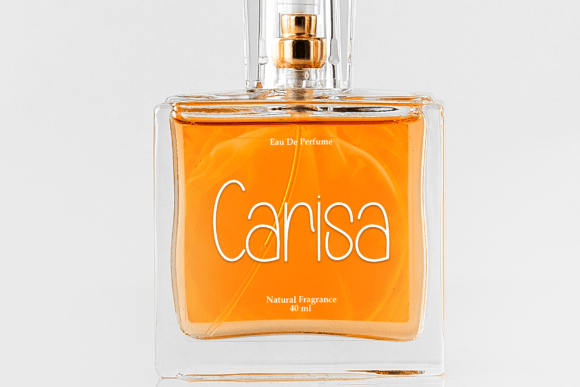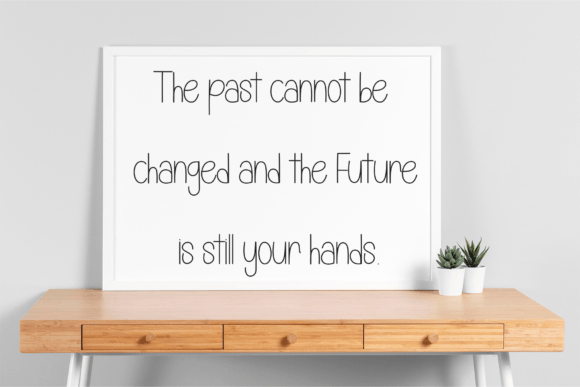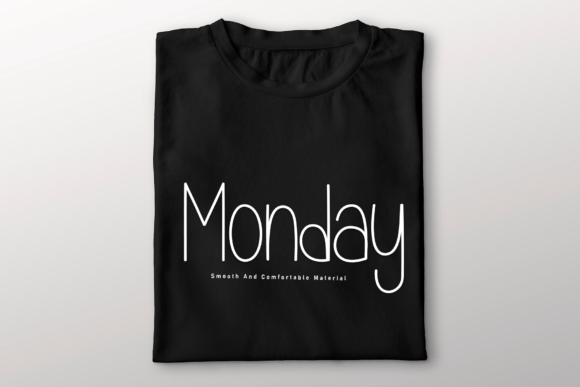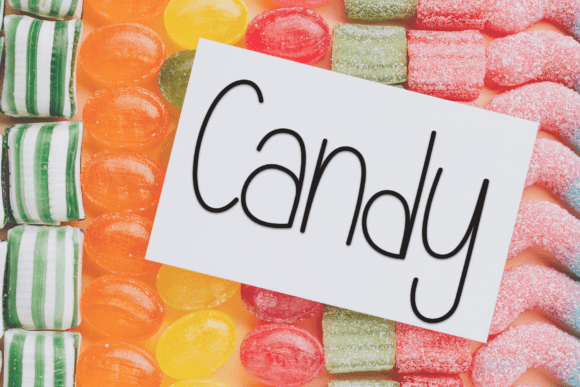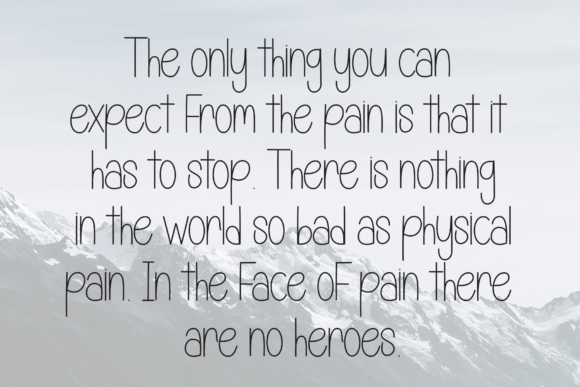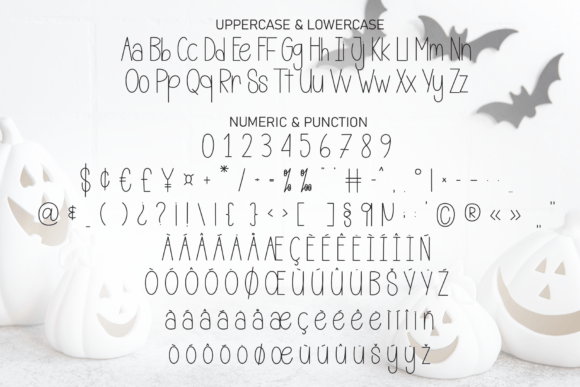
Happy Halloween Font: Add a Dash of Whimsy to Your Designs
Are you looking for a font that can add a playful touch to your designs? Look no further than the Happy Halloween Font! This charmingly adorable handwritten display font is perfect for designers and crafters who want to infuse their projects with a jovial vibe. With its endearing personality, sweetness, and friendliness, this delightful font is sure to bring a smile to your audience’s faces.
The Perfect Font for Whimsical Designs
The Happy Halloween Font is a versatile font that can be used for a variety of design projects. Whether you’re creating wedding invitations, greeting cards, or other projects that require a dash of fun, this font is sure to deliver. Its playful aesthetic is bound to infuse your designs with whimsical charm, making them stand out from the crowd.
Key Features of the Happy Halloween Font
- Handwritten Display Font: The Happy Halloween Font is a handwritten display font that has a personal and friendly feel to it.
- Playful Aesthetic: This font has a playful aesthetic that’s perfect for designers who want to add a touch of whimsy to their designs.
- Sweet and Friendly: The Happy Halloween Font is perfectly woven with sweetness and friendliness, making it perfect for projects that require a warm and inviting tone.
- Versatile: This font can be used for a variety of design projects, including wedding invitations, greeting cards, and other projects that require a dash of fun.
How to Use the Happy Halloween Font
The Happy Halloween Font is easy to use and can be incorporated into your designs in a variety of ways. Here are a few ideas to get you started:
- Wedding Invitations: Add a touch of whimsy to your wedding invitations with the Happy Halloween Font. It’s perfect for couples who want to add a playful touch to their special day.
- Greeting Cards: The Happy Halloween Font is perfect for greeting cards, including birthday cards, get-well cards, and holiday cards.
- Social Media Graphics: Use the Happy Halloween Font to create social media graphics that are fun and engaging.
- DIY Projects: The Happy Halloween Font is perfect for DIY projects, including scrapbooking, journaling, and other craft projects.
The Happy Halloween Font is a charmingly adorable handwritten display font that’s perfect for designers and crafters who want to add a playful touch to their designs. With its endearing personality, sweetness, and friendliness, this delightful font is sure to bring a smile to your audience’s faces. Whether you’re creating wedding invitations, greeting cards, or other projects that require a dash of fun, the Happy Halloween Font is sure to deliver. So why wait? Download the Happy Halloween Font today and start adding a touch of whimsy to your designs!